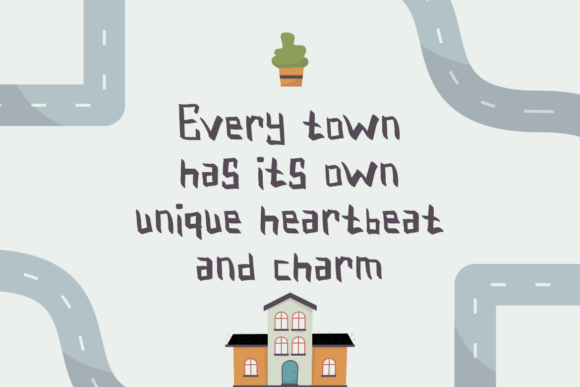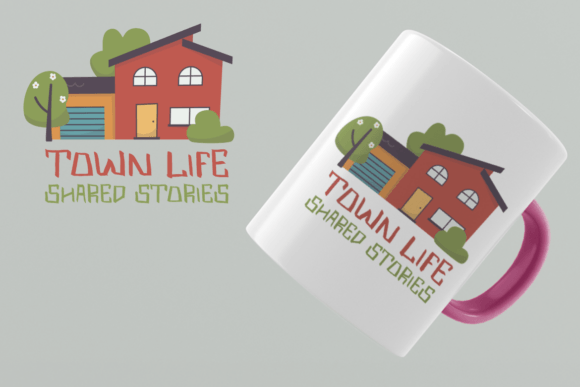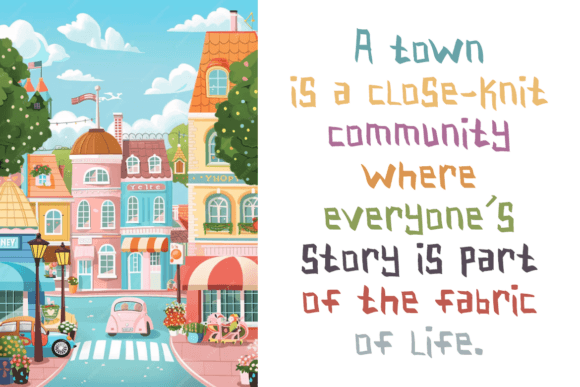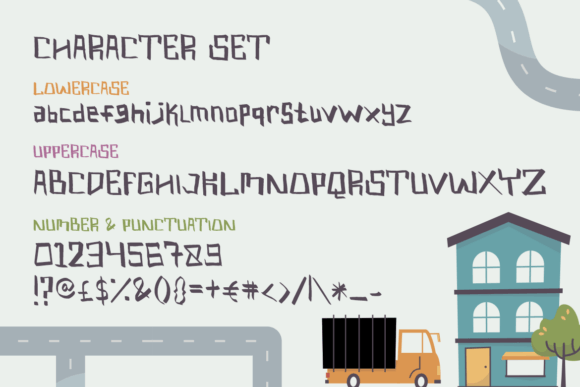
Introducing Glimmera Font: The Quirky Typeface That Adds Whimsy to Your Designs
Are you tired of using the same old fonts in your designs? Look no further than Glimmera Font, a delightful typeface that brings a burst of whimsy and charm to any project. This playful display sans font features hand-sketched characters with a unique scribble texture, making it perfect for capturing attention with its cute and quirky style.
The Unique Characteristics of Glimmera Font
Each letter in Glimmera Font is designed with varying thicknesses and irregular contours, giving it an authentic, hand-drawn feel that adds a touch of elegance to your designs. The hand-sketched characters have a unique scribble texture that sets them apart from other fonts. This distinctive style makes Glimmera Font perfect for designers and crafters who want to add a personal touch to their work.
Glimmera Font is versatile and can be used across various mediums, from bold branding endeavors to heartwarming greeting cards. Its playful elegance makes it ideal for:
• Logos: Create a memorable brand identity with Glimmera Font’s unique style.
• Invitation cards: Add a touch of whimsy to your invitations and make them stand out.
• Posters: Create eye-catching posters that capture attention with Glimmera Font’s playful elegance.
• Packaging designs: Add a personal touch to your packaging with Glimmera Font’s distinctive style.
• Movie titles: Imagine your next movie title gracefully sketched in Glimmera Font’s distinctive style.
• Business logos: Reimagine your business logo with Glimmera Font’s playful elegance.
Glimmera Font: A Storytelling Tool
Glimmera Font is more than just a typeface; it’s a storytelling tool that brings your creative visions to life. Its unique style and playful elegance make it perfect for designers and crafters who want to add a personal touch to their work. With Glimmera Font, you can:
• Create a brand identity that stands out from the crowd.
• Add a touch of whimsy to your designs and make them more engaging.
• Convey a sense of elegance and sophistication with a playful twist.
Why Choose Glimmera Font?
There are many fonts available, but Glimmera Font stands out from the rest. Here are a few reasons why:
• Unique style: Glimmera Font’s hand-sketched characters and scribble texture make it one-of-a-kind.
• Versatility: Glimmera Font can be used across various mediums and design projects.
• Playful elegance: Glimmera Font adds a touch of whimsy and charm to any design.
• Authentic feel: Glimmera Font’s hand-drawn feel makes it perfect for designers and crafters who want to add a personal touch to their work.
Glimmera Font is a delightful typeface that brings a burst of whimsy and charm to any project. Its unique style, versatility, and playful elegance make it perfect for designers and crafters who want to add a personal touch to their work. Whether you’re crafting logos, designing invitation cards, or creating eye-catching posters, Glimmera Font is the perfect choice. So why settle for ordinary fonts when you can add a touch of whimsy to your designs with Glimmera Font?
• Create designs that stand out from the crowd.
• Add a personal touch to your work.
• Convey a sense of elegance and sophistication with a playful twist.